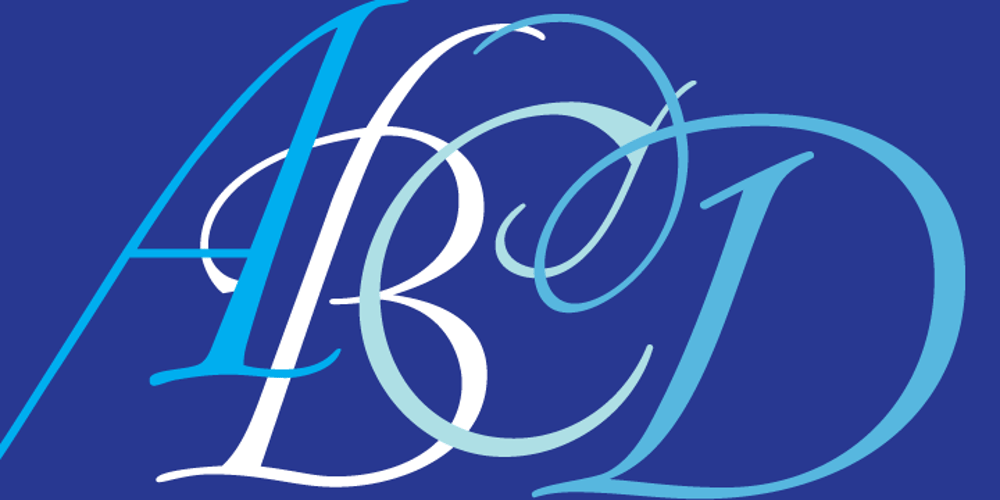
Circulaire Font Family was designed by Sjoerd Hendrik de Roos, Hans van Maanen and published by Canada Type. Circulaire contains 1 styles and family package options. Circulaire is a set of initial caps designed by Sjoerd Hendrik de Roos in 1926, and digitized in 2009 by Hans van Maanen. Unusual serifs, spurs and swashes make for interesting continuity points in the familiarly angled shapes, while adding a unique calligrapher’s touch to the beheld forms. As far as initials go, this set contains the extra touch of personality needed to lead into a paragraph, which is preferable to the usual swashed italics that are widely used. Circulaire is available in all popular font formats and includes extended support for a wide variety of Latin-based languages.